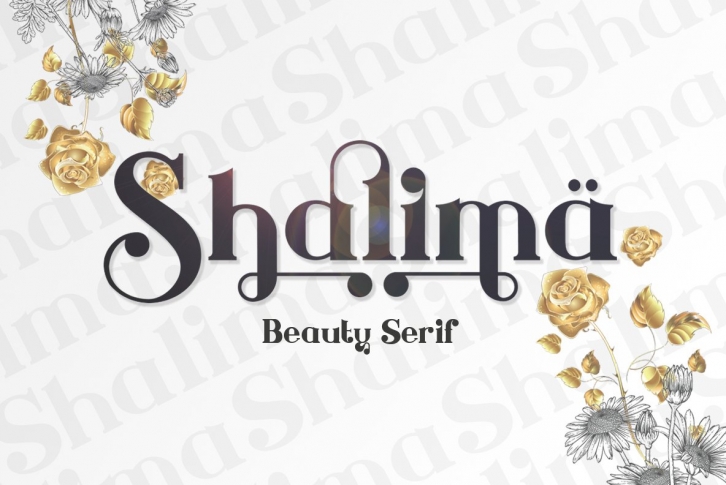
Shalima is a serif font that is specifically designed to make a non-standard font, looks beautiful, neatly elegant and strong when used for branding. has a strong character, with characteristics that are different from other fonts.
Shalima has more than 450 glyphs, which includes a complete set of multilingual, more than 50 ligatures, and alternate to make it easier for you to work.
Not only the standard fonts that you will have when buying Shalima fonts, but you will also get regular mode, regular outline, italic and italic outlined. You will get a total of 8 total fonts in OTF and TTF formats.